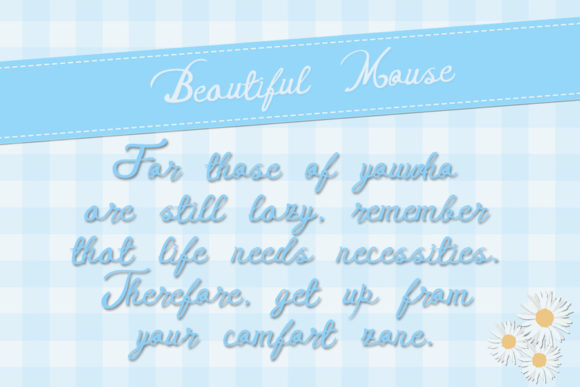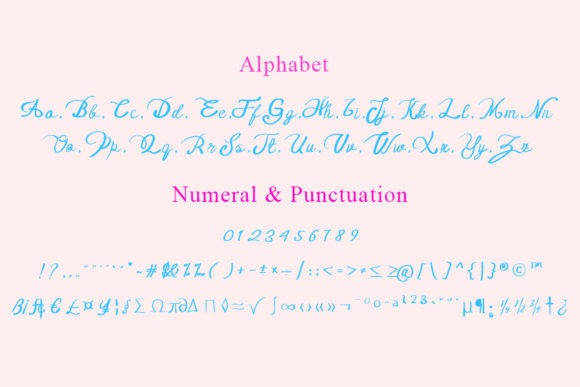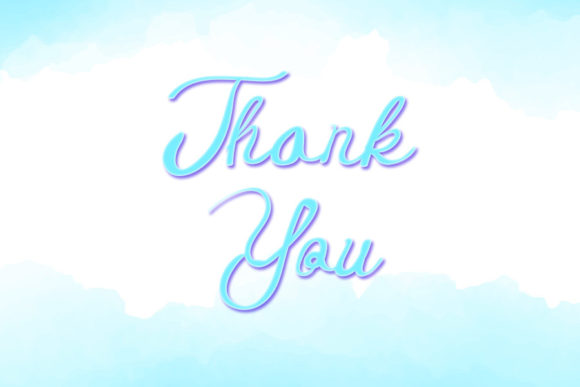
The Perfect Font for Captivating Design
Have you ever stared at a blank page, waiting for inspiration to strike? The cursor blinks, and your mind goes blank. But then, a spark of creativity hits, and you start to envision the perfect design. It’s a feeling of pure excitement, and you can’t wait to bring it to life. This is exactly what happens when designers discover the Beautiful Mouse Font.
This lovely and timeless handwritten font is a game-changer for logos, branding, and quotes. Every letter has a unique and beautiful touch, making your design truly special. Whether you’re a seasoned pro or a beginner, Beautiful Mouse Font is a valuable addition to your design toolkit. With its versatility and elegance, it’s no wonder why designers are falling in love with this font.
Beautiful Mouse Font Key Features
- Unique Characteristics: Beautiful Mouse Font features a unique, handwritten style with elegant flourishes and subtle imperfections, giving it a personal and artistic touch.
Designer Review: Beautiful Mouse Font
Overall, I’m quite impressed with the Beautiful Mouse Font. It has a unique charm that’s hard to resist. Here’s what I like about it: ✨
- Playful and whimsical feel: The font has a carefree, childlike quality that’s perfect for creative projects.
- Good legibility: Despite its cursive nature, the font is still easy to read, even at smaller font sizes.
- Variety of styles: The font comes in multiple weights and styles, giving you plenty of options to choose from.
- Not suitable for formal projects: The font’s playful nature makes it more suitable for creative or informal projects, rather than formal documents or business materials.
- Limited language support: The font may not support certain languages or character sets, so be sure to test it before using it for multilingual projects.
- No bold or italic versions: While the font has multiple weights, it lacks bold and italic versions, which can be a limitation for certain design projects.
Overall, I’d say the Beautiful Mouse Font is a great addition to any designer’s toolkit. While it may not be perfect for every project, its unique charm and variety of styles make it a valuable asset for creative and informal projects.
Use the Beautiful Mouse Font to add a touch of elegance to your designs. Try pairing it with other fonts to create a unique look. Experiment with different font sizes and colors to create visual interest.
The Beautiful Mouse Font is perfect for:
- Branding and logo designs
- Editorial and publishing projects
Alternatives to “Beautiful Mouse Font” for Designers
Great Vibes is a beautiful, elegant script font perfect for creating a sophisticated and luxurious feel. It is ideal for use in logos, invitations, and other high-end design projects. Great Vibes is similar to Beautiful Mouse Font in its flowing and cursive style, but with a more refined and polished appearance.
Pacifico is a modern, beach-inspired script font that is perfect for creating a relaxed and casual atmosphere. It is ideal for use in branding, packaging, and other design projects where a laid-back feel is desired. Pacifico is similar to Beautiful Mouse Font in its cursive style, but with a more relaxed and casual tone.
Dancing Script is a fun and playful script font that is perfect for creating a lively and energetic feel. It is ideal for use in branding, advertising, and other design projects where a dynamic and attention-grabbing feel is desired. Dancing Script is similar to Beautiful Mouse Font in its flowing and cursive style, but with a more playful and whimsical tone.